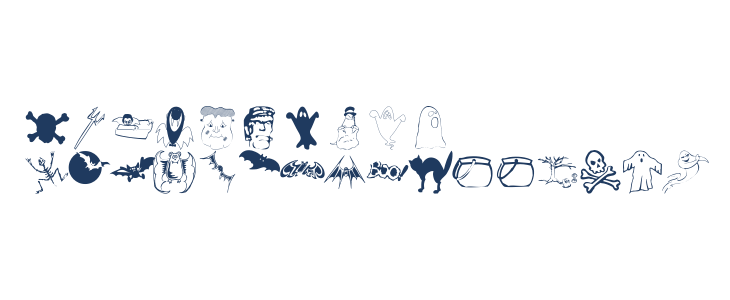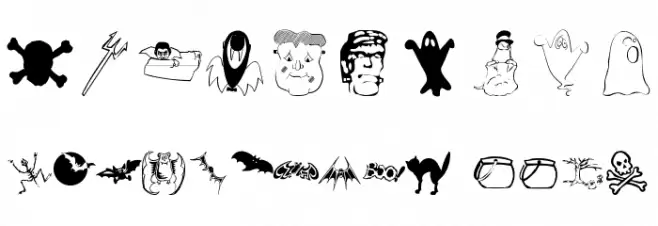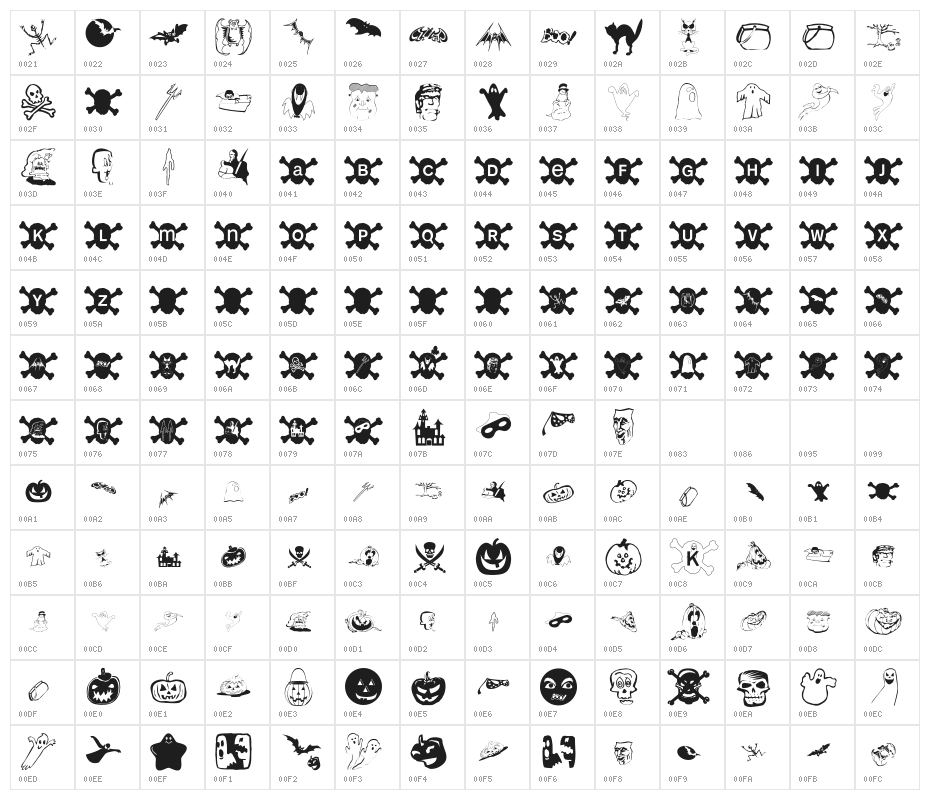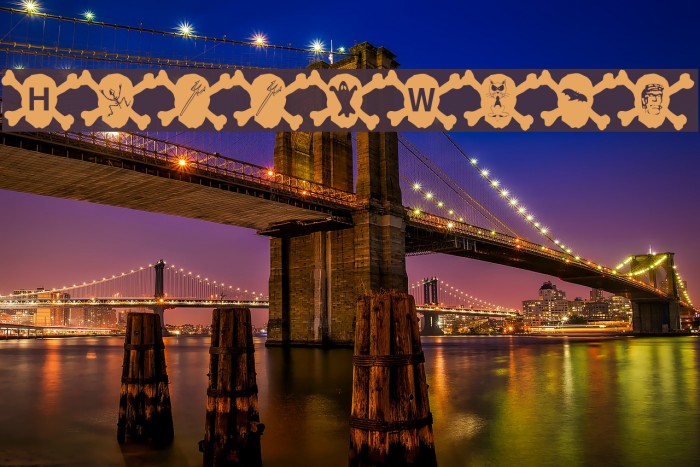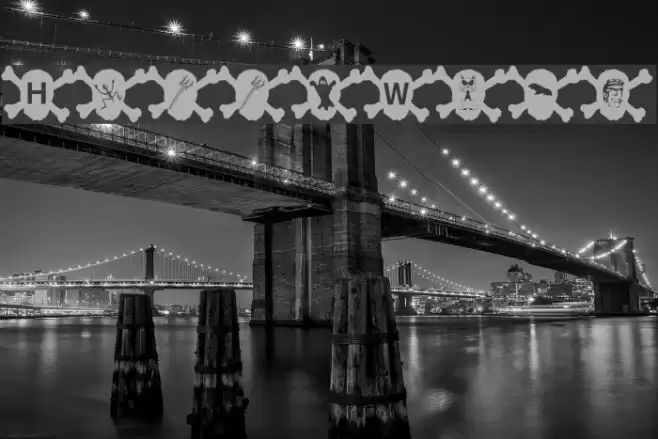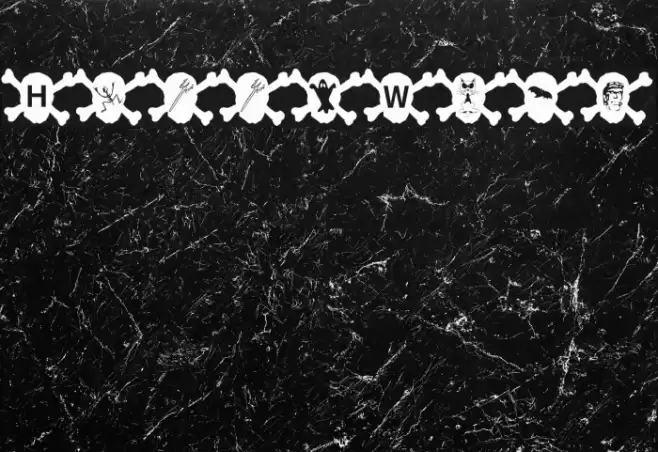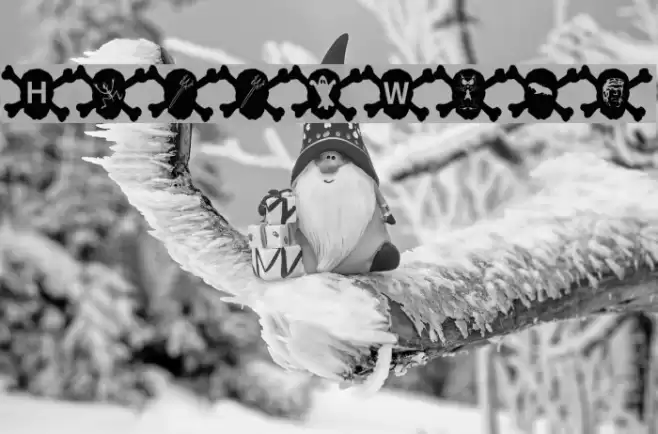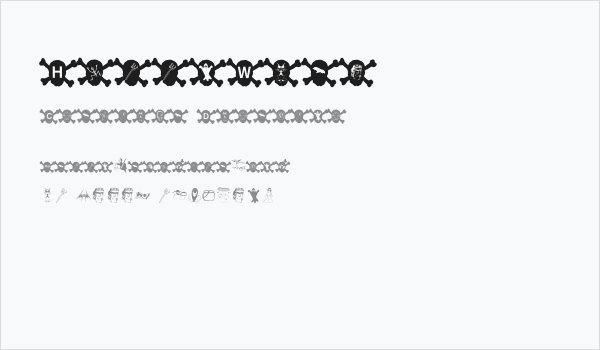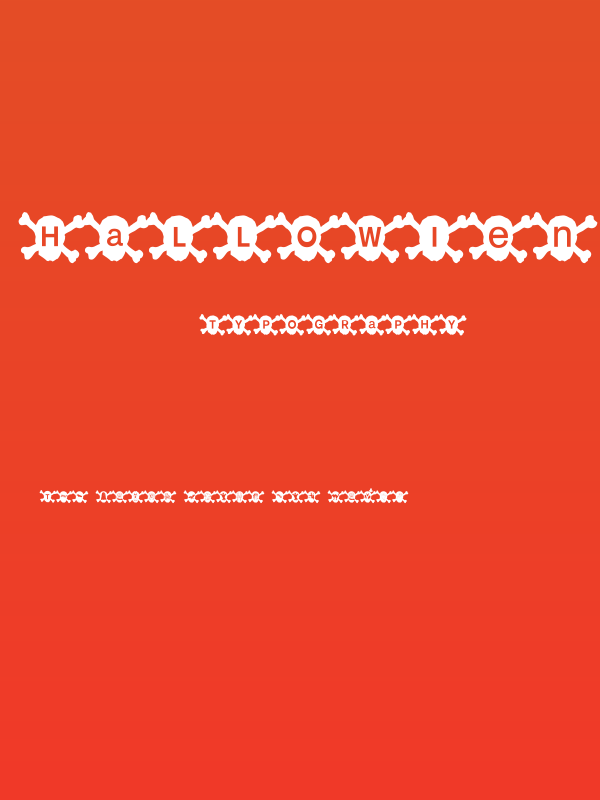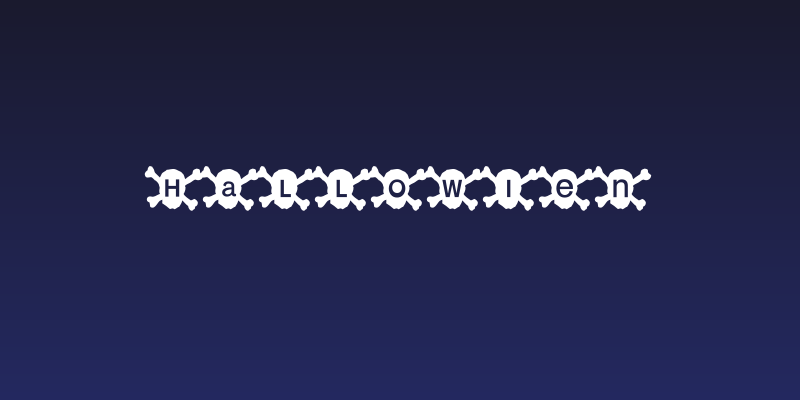
HalloWien Font
HalloWien Description
This font is a playful and thematic design that incorporates Halloween elements into each character. Each letter is creatively integrated with bats, skulls, and other spooky motifs, making it highly decorative and visually engaging. The uppercase and lowercase letters are adorned with intricate Halloween-themed illustrations, adding a unique flair to the text. The numbers and special characters continue this theme, featuring iconic Halloween symbols like ghosts, pumpkins, and bats. The overall design is bold and eye-catching, perfect for capturing the essence of Halloween in any project.
Proposed ProjectsIdeal for Halloween party invitations, themed posters, greeting cards, and festive banners.